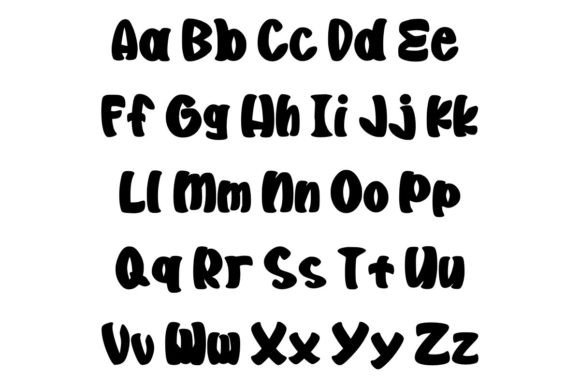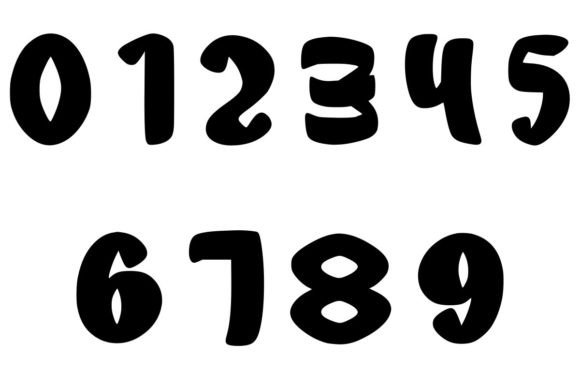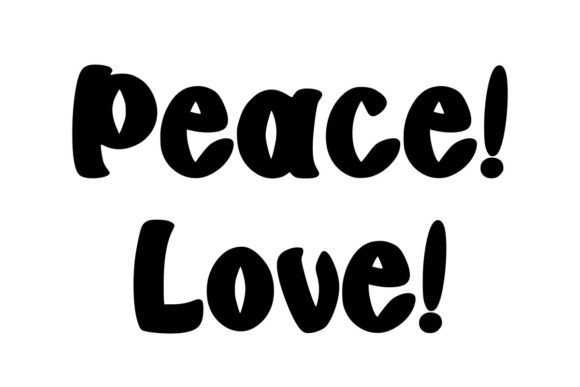
DW Flirty Font: The Ultimate Guide to This Fun and Flirty Handwritten Display Font
Are you tired of using the same old fonts for your digital designs, crafts, and presentations? Look no further than the DW Flirty font! This fun and flirty handwritten display font is perfect for anyone looking to add a touch of personality to their projects. In this article, we’ll dive into the world of DW Flirty and explore its features, uses, and benefits.
What is DW Flirty Font?
DW Flirty is a beautifully crafted handwritten display font that exudes a sense of playfulness and charm. Its unique and elegant lettering makes it perfect for a wide range of applications, from digital designs to handmade crafts. Whether you’re creating greeting cards, invitations, or social media graphics, DW Flirty is sure to make your projects stand out.
Features of DW Flirty Font
So, what makes DW Flirty font so special? Here are some of its key features:
- Handwritten style: DW Flirty has a beautiful, handwritten style that’s perfect for adding a personal touch to your projects.
- Display font: This font is designed to make a statement, making it perfect for headings, titles, and other display text.
- Fun and flirty: DW Flirty has a playful and charming vibe that’s sure to add a touch of whimsy to your designs.
- Versatile: This font can be used for a wide range of applications, from digital designs to handmade crafts.
Uses of DW Flirty Font
DW Flirty font is incredibly versatile, making it perfect for a wide range of projects. Here are some ideas to get you started:
- Crafts: Use DW Flirty to add a personal touch to your handmade crafts, such as scrapbooking, card making, and journaling.
- Digital design: This font is perfect for digital designers looking to add a touch of personality to their projects, such as social media graphics, blog posts, and presentations.
- Greeting cards: Create beautiful and unique greeting cards for special occasions, such as birthdays, weddings, and holidays.
- Invitations: Use DW Flirty to create custom invitations for parties, events, and other special occasions.
Benefits of Using DW Flirty Font
So, why should you choose DW Flirty font for your projects? Here are some benefits:
- Adds personality: DW Flirty adds a touch of personality and whimsy to your projects, making them stand out from the crowd.
- Versatile: DW Flirty can be used for a wide range of applications, making it a great addition to your font library.
- Unique: This font is sure to make your projects stand out, thanks to its unique and elegant lettering.
Tips for Using DW Flirty Font
Here are some tips for getting the most out of DW Flirty font:
- Experiment with colors: Try pairing DW Flirty with different colors and textures to add depth and interest to your designs.
- Use it sparingly: While DW Flirty is a beautiful font, it can be overwhelming if used too much. Try using it sparingly to add a touch of personality to your projects.
- Pair it with other fonts: Try pairing DW Flirty with other fonts to create a unique and interesting contrast.
DW Flirty font is a fun and flirty handwritten display font that’s perfect for designers and crafters looking to add a touch of personality to their projects. With its unique and elegant lettering, versatile uses, and easy-to-use design, DW Flirty is sure to become your go-to font for all your design needs. So why wait? Download DW Flirty font today and start creating beautiful and unique projects that stand out from the crowd!